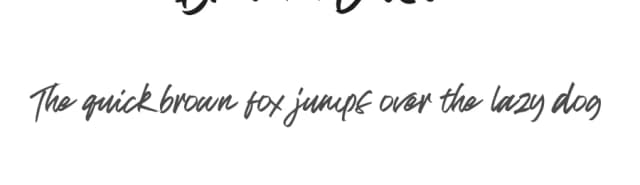
About Rather Font
Product Description :
Rather is an exquisite handwritten font, masterfully designed to become a true favorite. It maintains its classy calligraphic influences while feeling contemporary and fresh. Fall in love with it and bring your projects to the highest levels.
Features include:
Ligatures
Stylistic Sets
Multilingual Supports
PUA Encoded
Numerals and Punctuations
| Designer | Donis Miftahudin |
Rather ships with 1 OpenType feature you can switch on in apps that support them (Illustrator, InDesign, Affinity, Figma, CSS font-feature-settings).
Rather supports 208 languages.
Rather Font is a script font that shines as a display or heading face. Pair it with a clean sans-serif or serif font for body text — the contrast creates a clear hierarchy while the two styles stay balanced and easy to read.
Rather Font